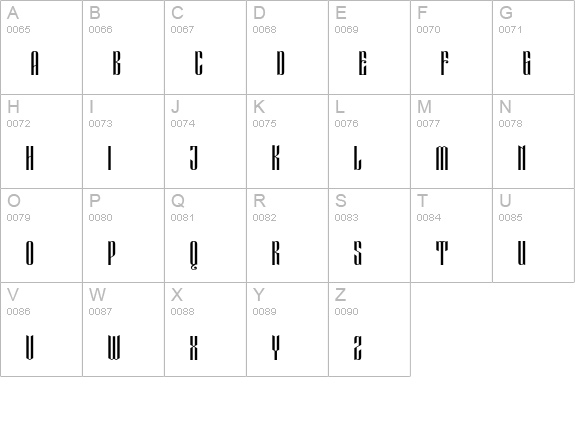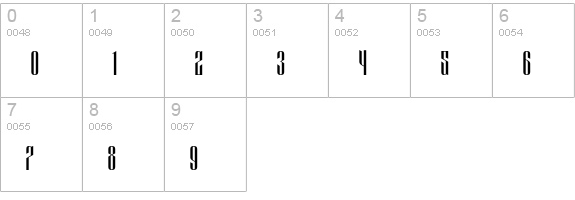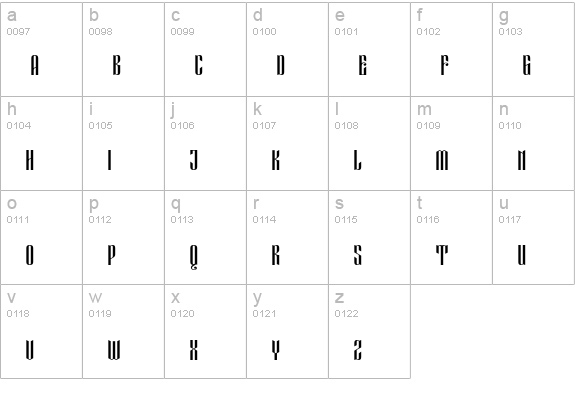
Eveagita Luxury Cap Font Details
Eveagita Luxury Cap font is the epitome of elegance and sophistication. With its delicate curves and stylish design, this font exudes a sense of luxury and class. Perfect for adding a touch of glamour to any project, Eveagita Luxury Cap font is sure to make a statement. The best part? Eveagita Luxury Cap font is available for free download at FontsMarket.com. Simply visit the website and start using this exquisite font in your designs today. Don't miss out on this opportunity to elevate your creations with the beauty of Eveagita Luxury Cap font.